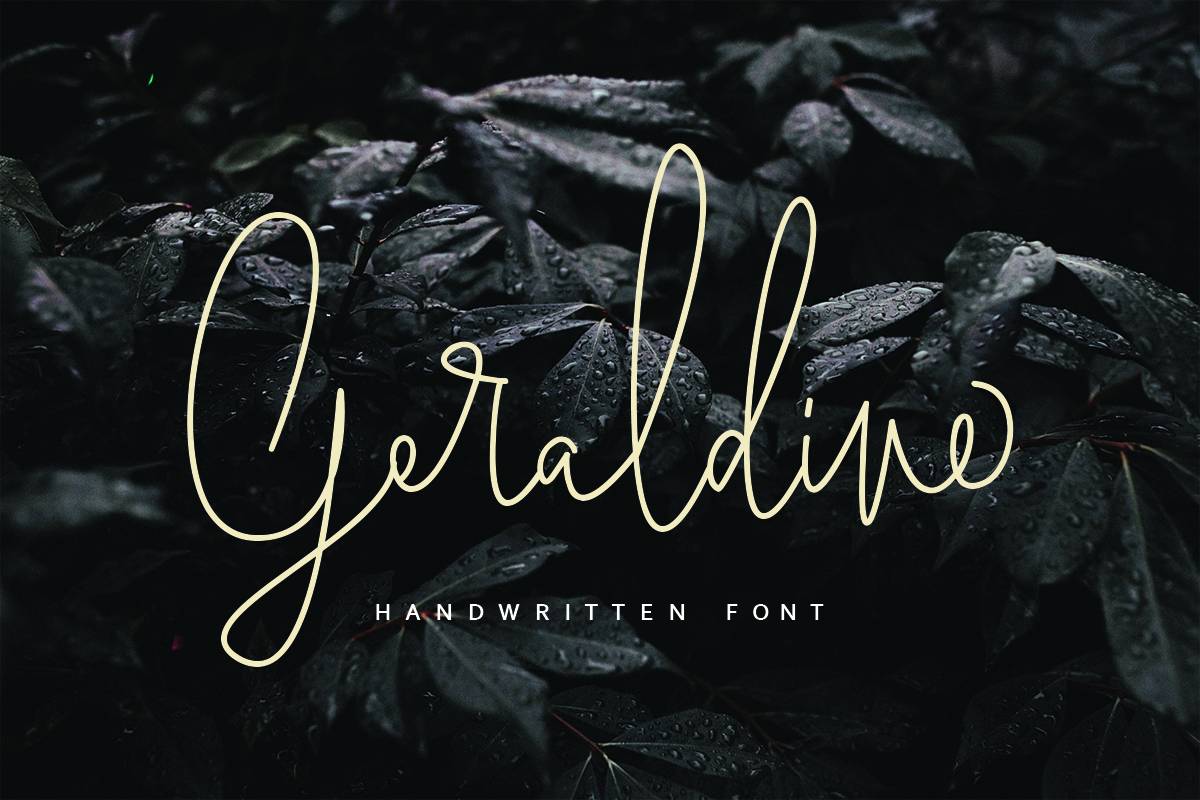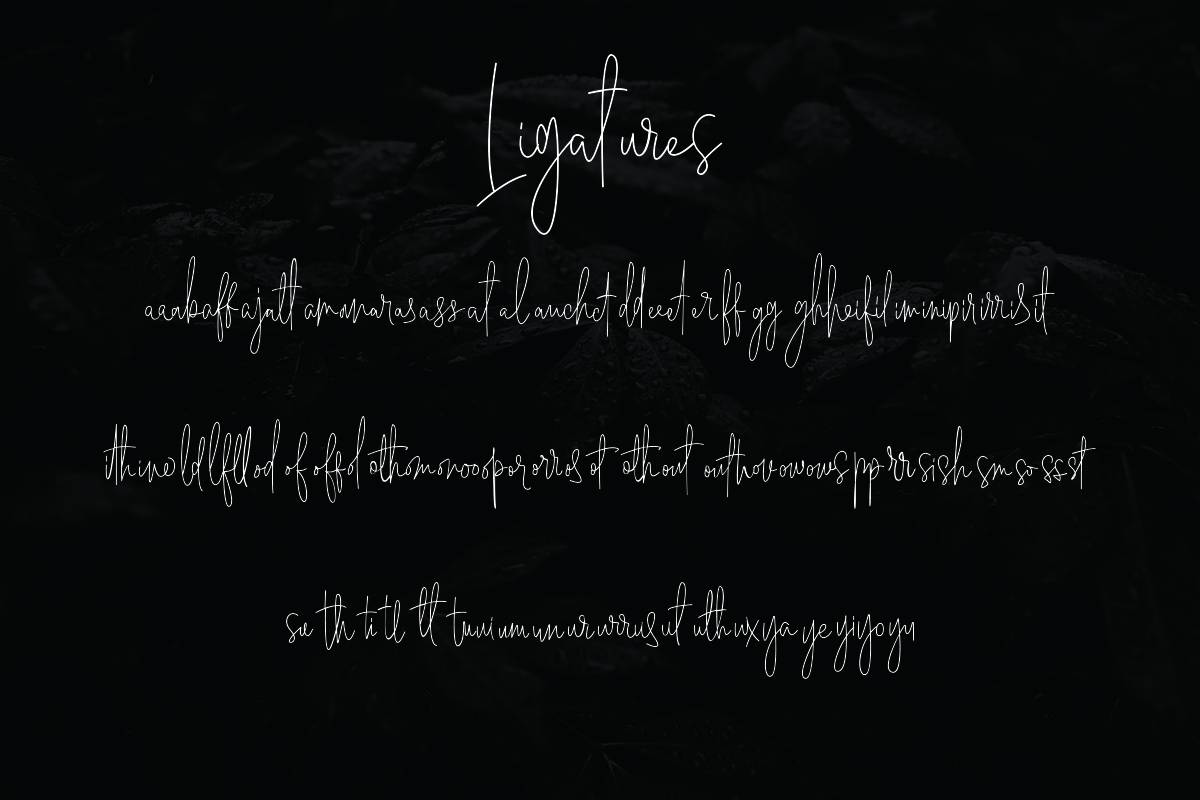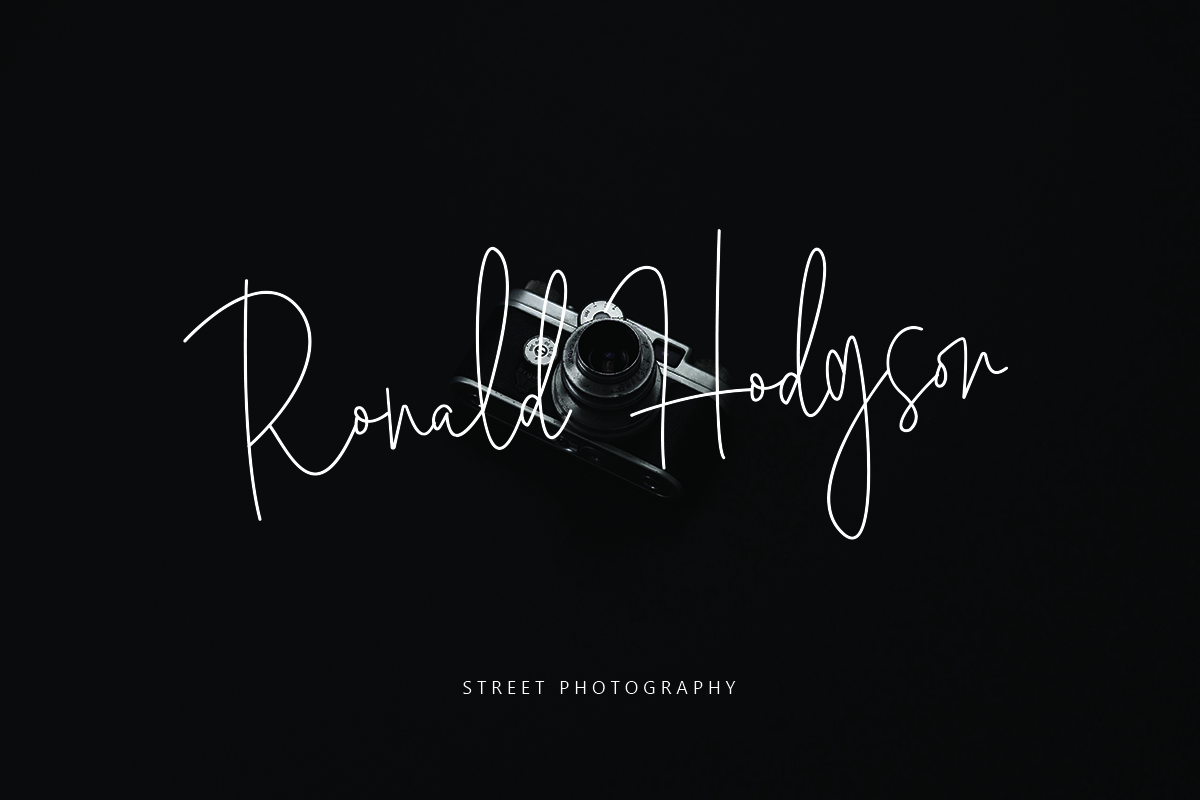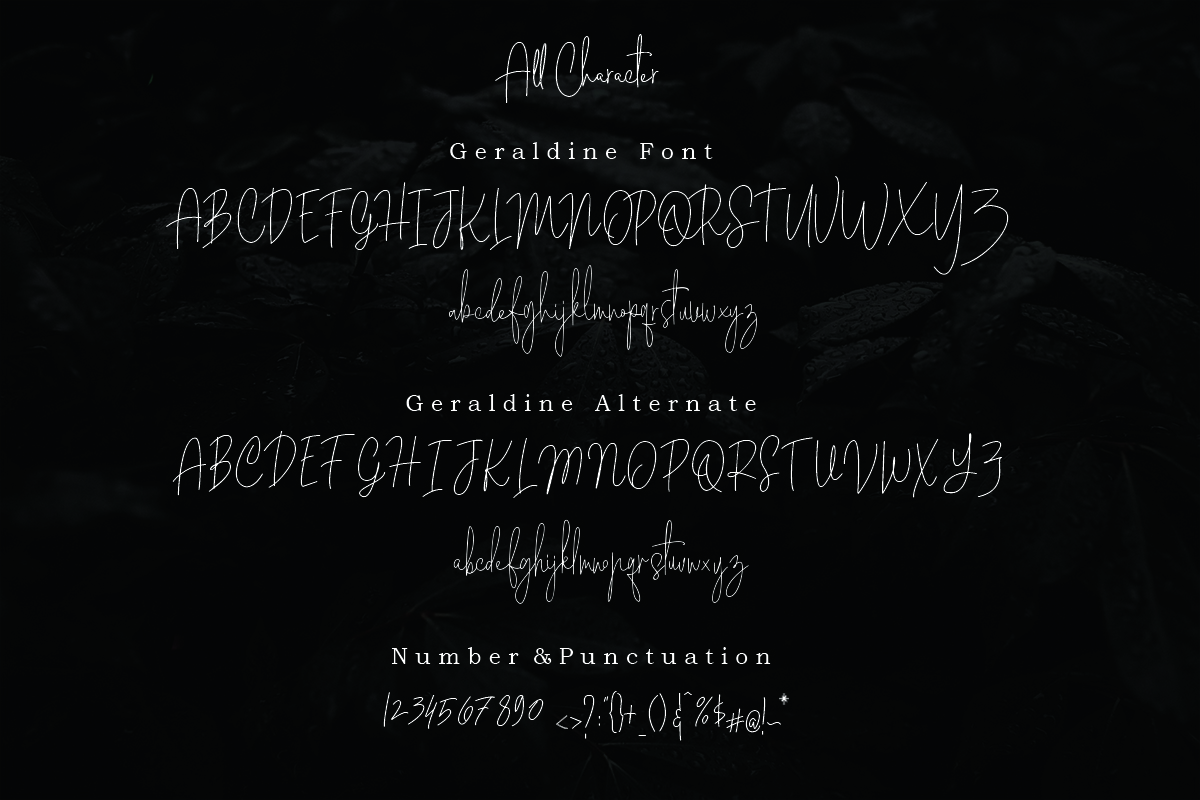
Geraldine is an elegant, delicate handwritten script font characterized by its tall, slender letterforms and fine, flowing lines. It exudes a personal and artistic vibe, making it perfect for designs that seek a touch of sophistication and intimacy, such as wedding invitations, fashion branding, or creative projects. Its light weight and airy spacing enhance readability while maintaining a stylish and graceful appearance.
Geraldine
About Geraldine